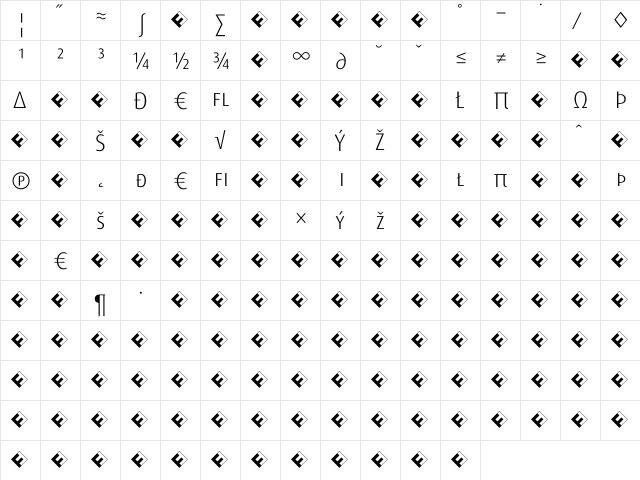
Dax-LightCapsExp Regular Font Preview
Dax-LightCapsExp Regular
Dax-LightCapsExp Regular Font Details
Design Context for Dax-LightCapsExp Typeface
Dax-LightCapsExp is a composed and adaptable typeface that performs quietly and consistently across a wide range of design contexts. The delicate stroke weight brings airiness and refinement to layouts.